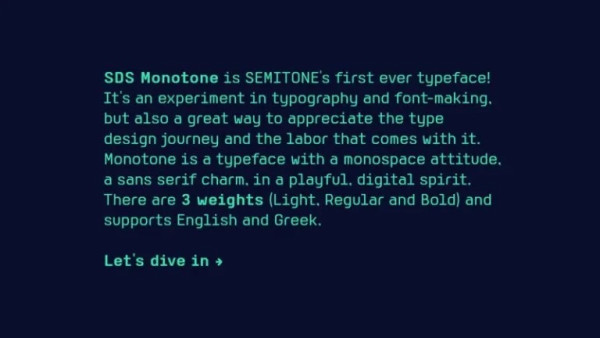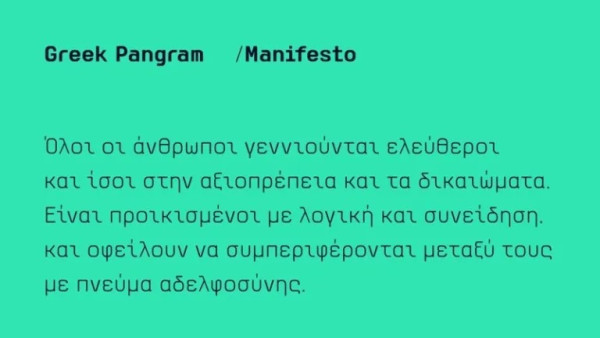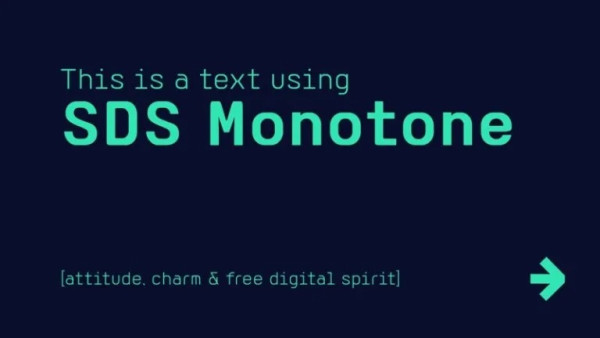
SDS Monotone Font
SDS Monotone Font is a display typeface with a modern impression. This font consists of 3 types of styles, namely regular, Light, and Bold. It’s an experiment in typography and font-making, but also a great way to appreciate the type design journey and the labor that comes with it.